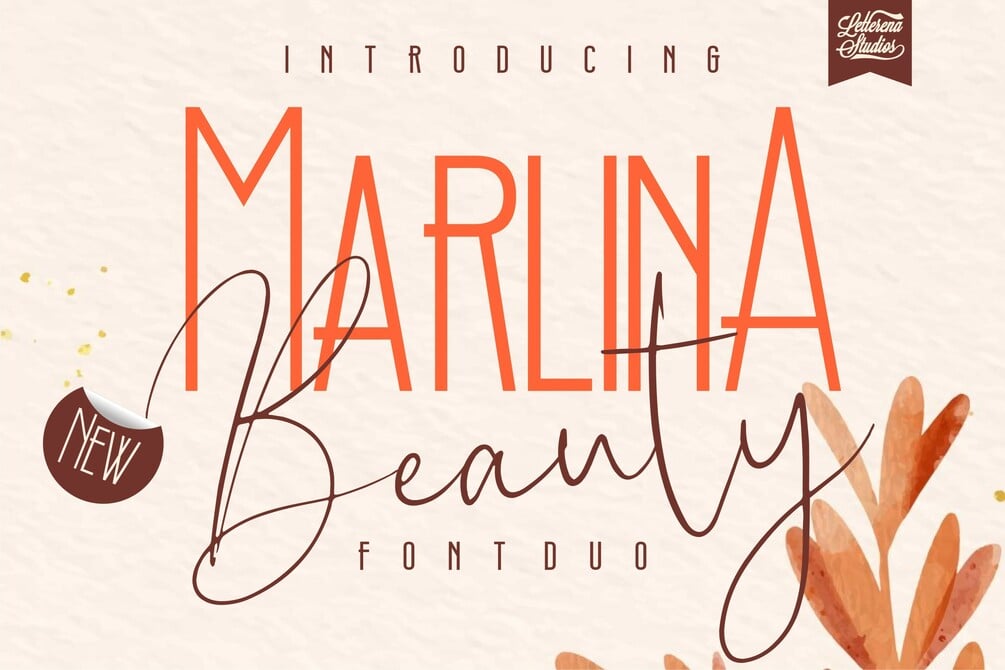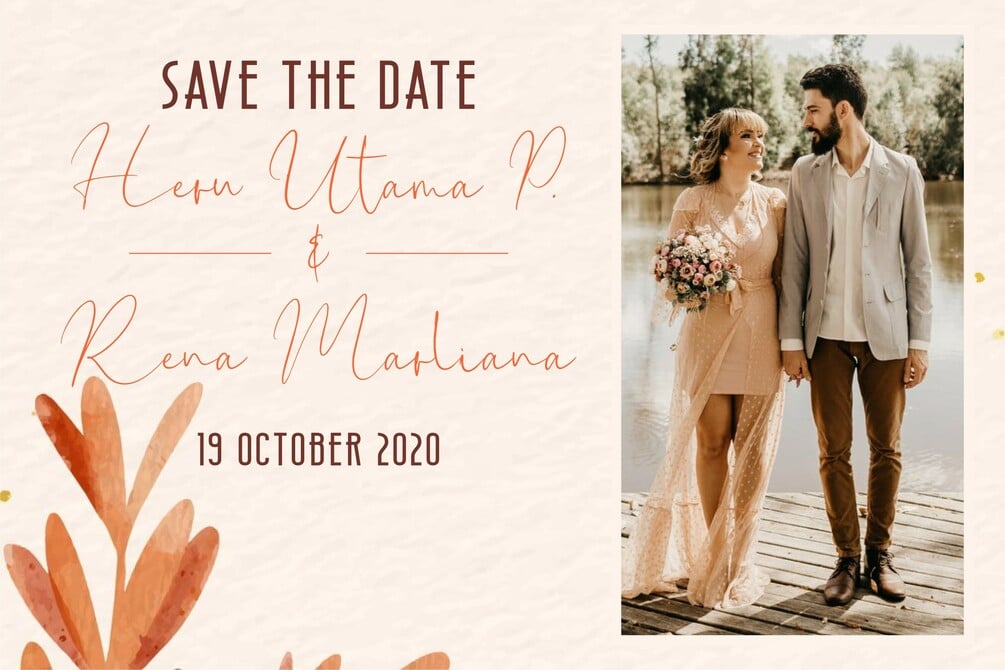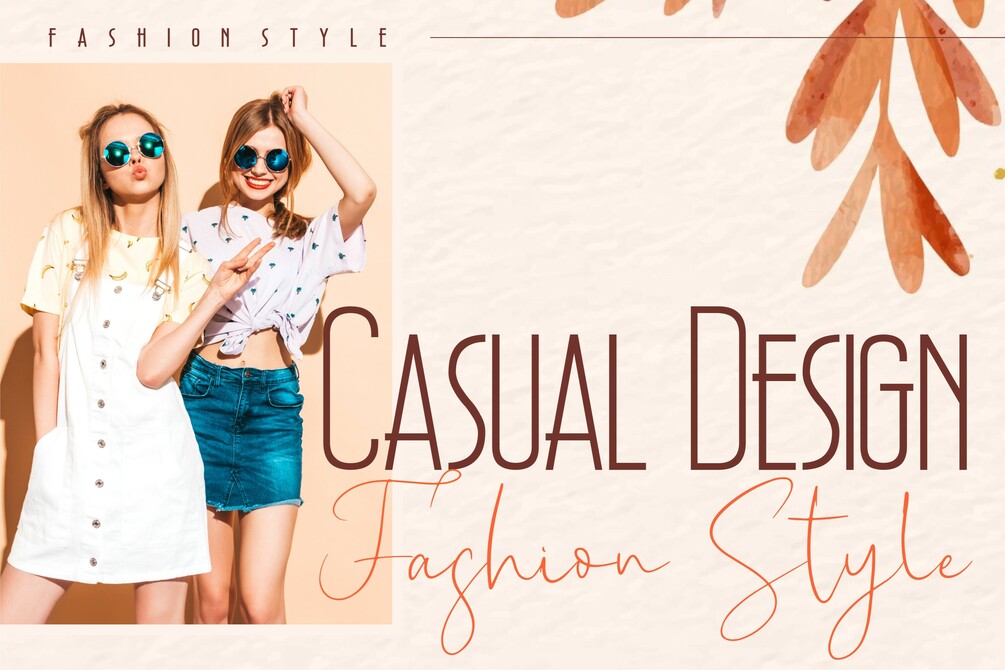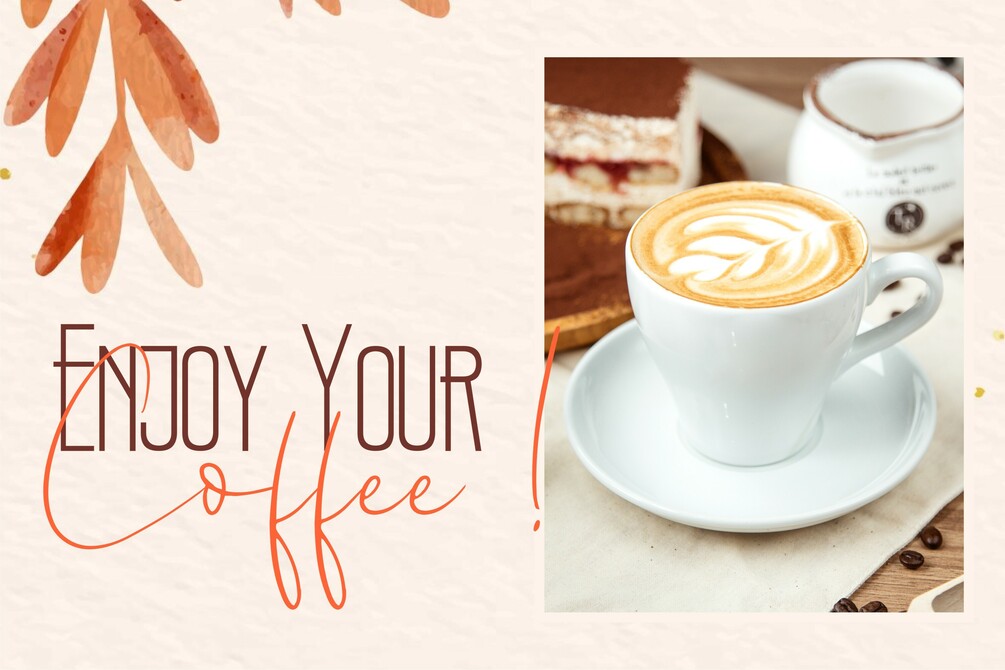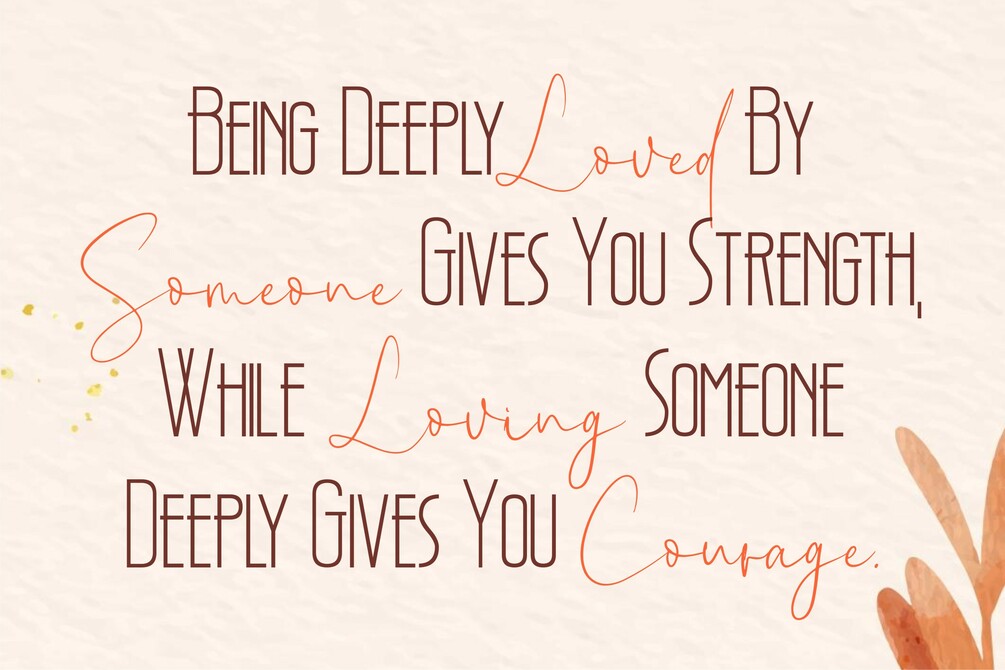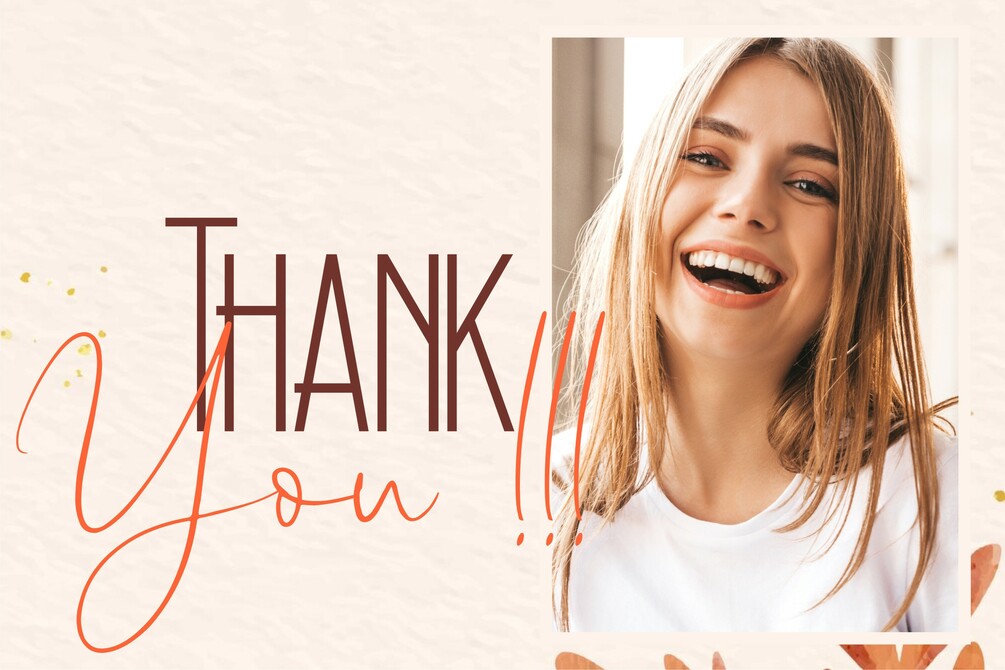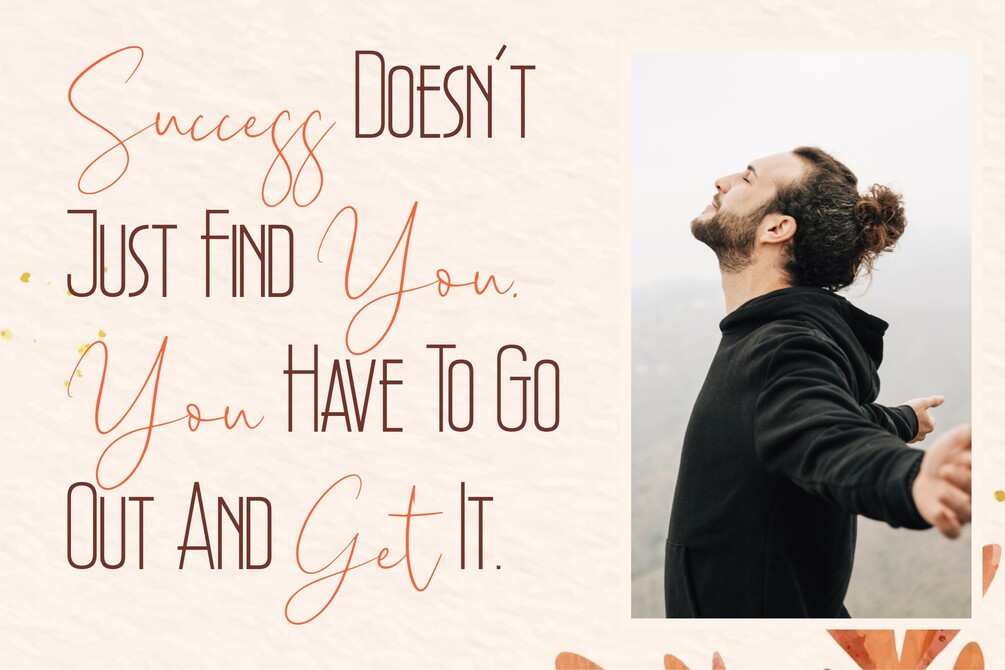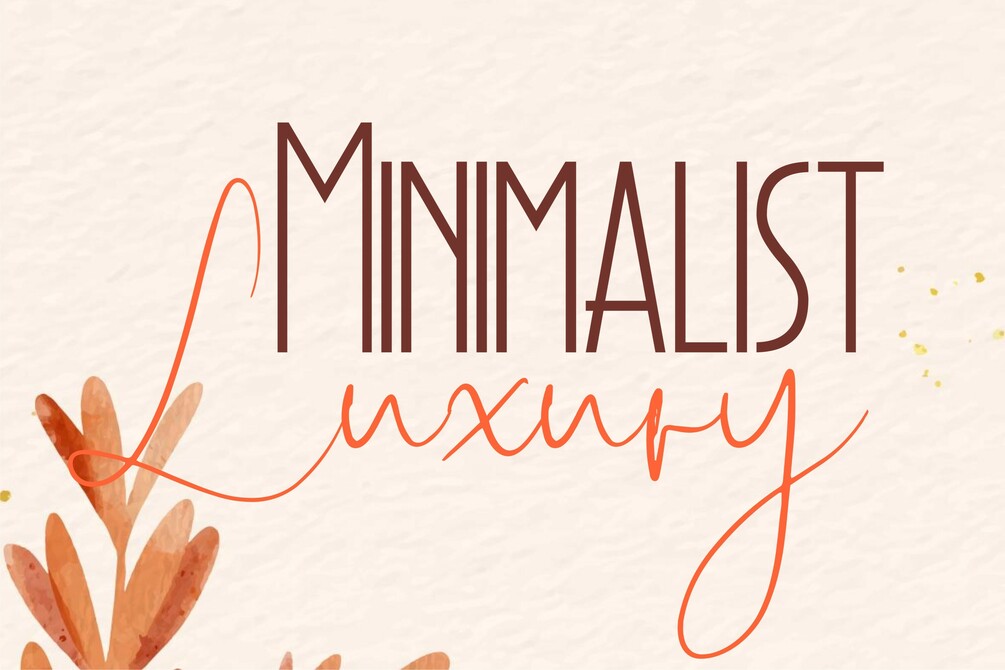
Marlina Beauty - Font Duo, Sans Serif and Signature Font
Marlina Beauty - Sans Serif and Signature Font, from Letterena, is a romantic calligraphy font, suitable for any projects such as: logos, branding projects, homeware designs, product packaging, mugs, quotes, posters, shopping bags, t-shirts, book covers, name card, invitation cards, greeting cards, label, photography, watermark, special events, and all your other lovely projects that need a beautiful calligraphy taste.